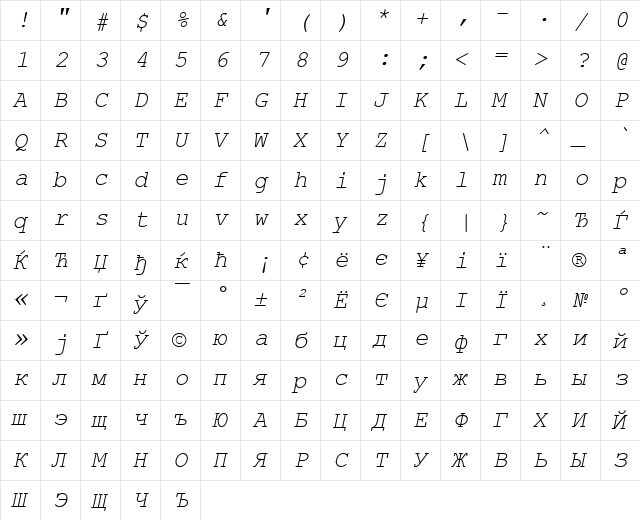
Courier New KOI8 Italic
| Designer | Howard Kettler |
Design Context for Courier New KOI8 Typeface
Courier New KOI8 brings the precise, column-aligned rhythm of monospaced typography to designs that value technical clarity and systematic order. Its italic angle brings a sense of urgency and motion to the letterforms.
Pro Tip: Pair Courier New KOI8 with a proportional sans for UI contexts where code-style labels and regular body copy need to coexist.